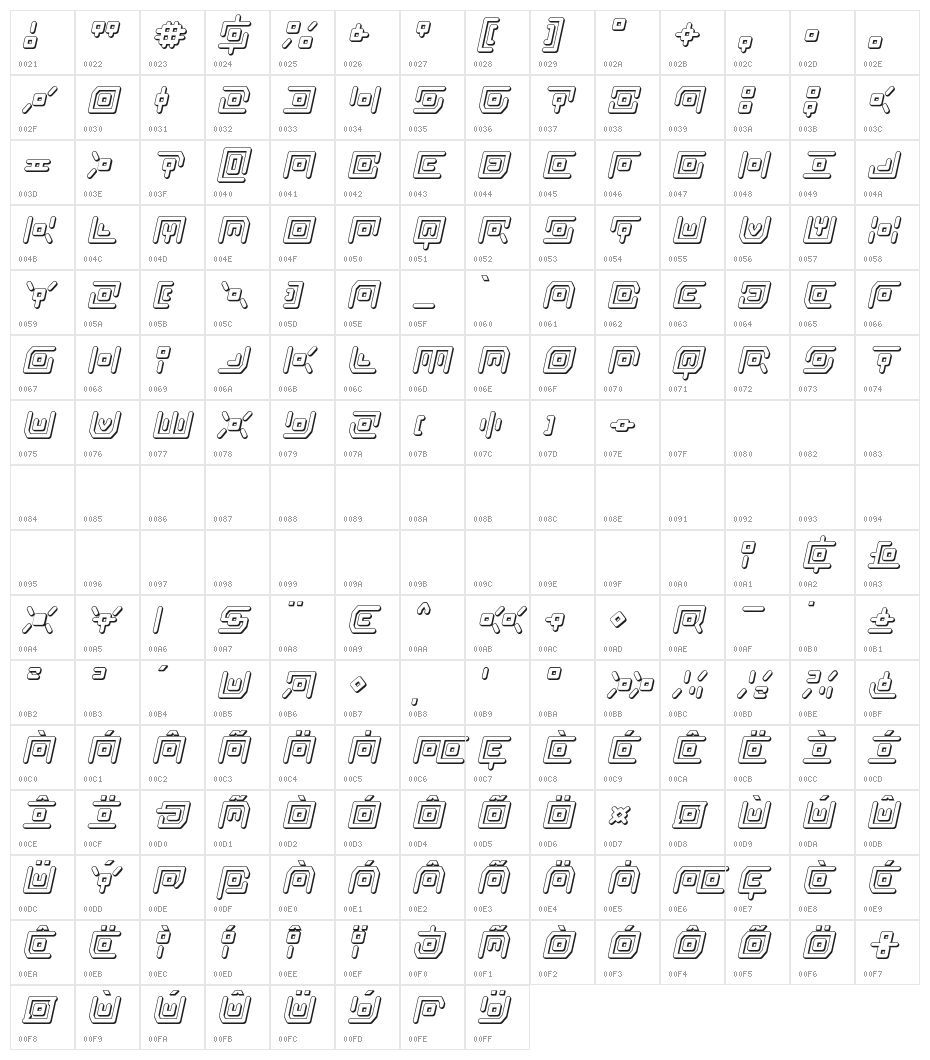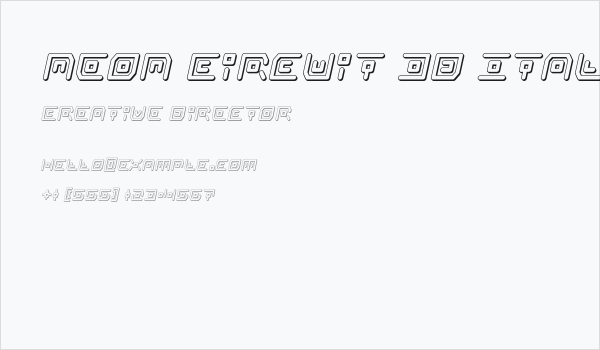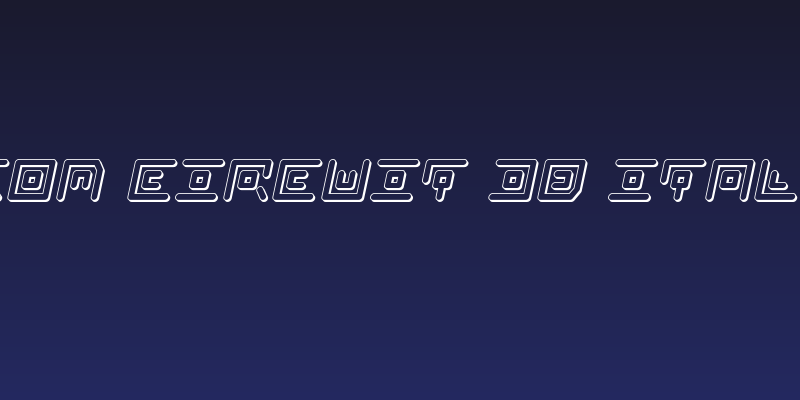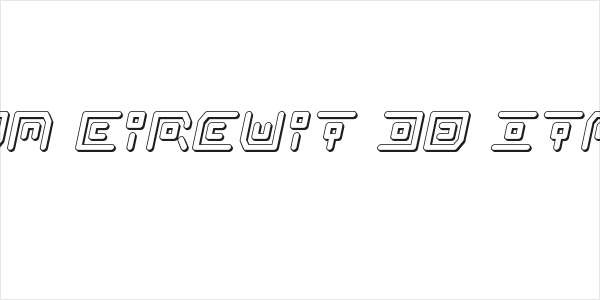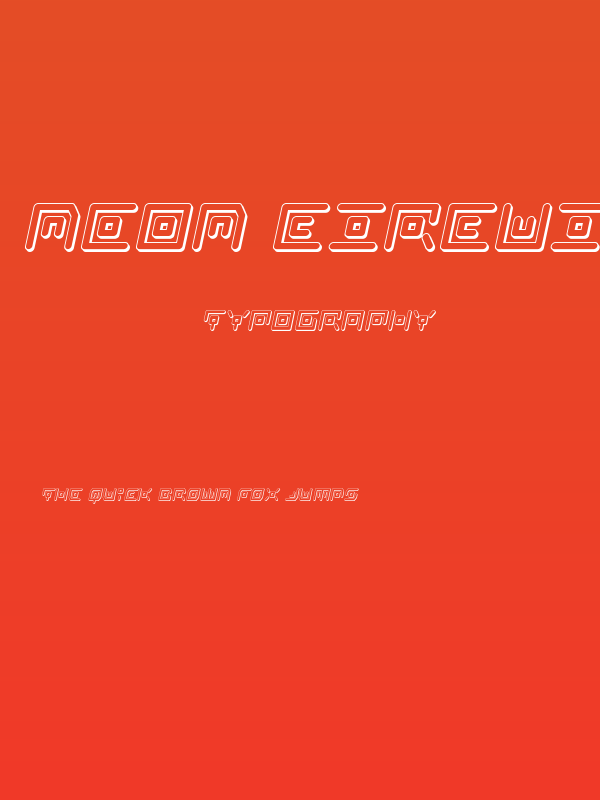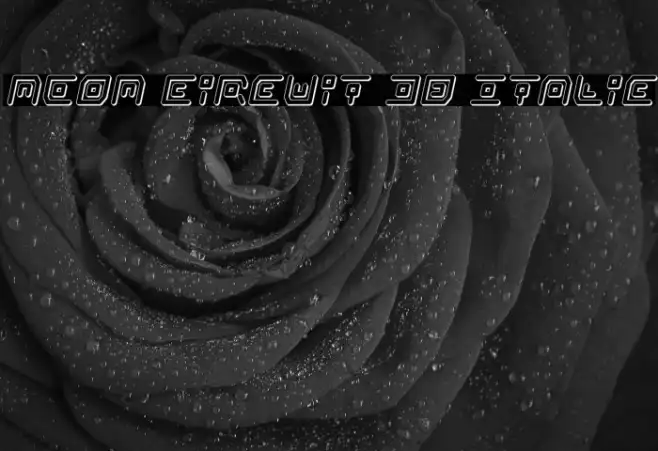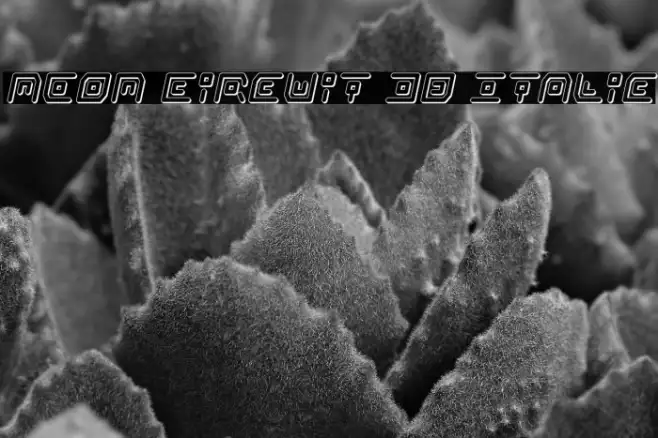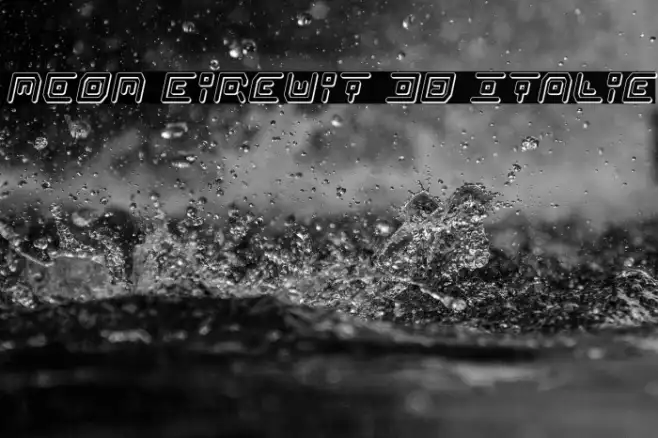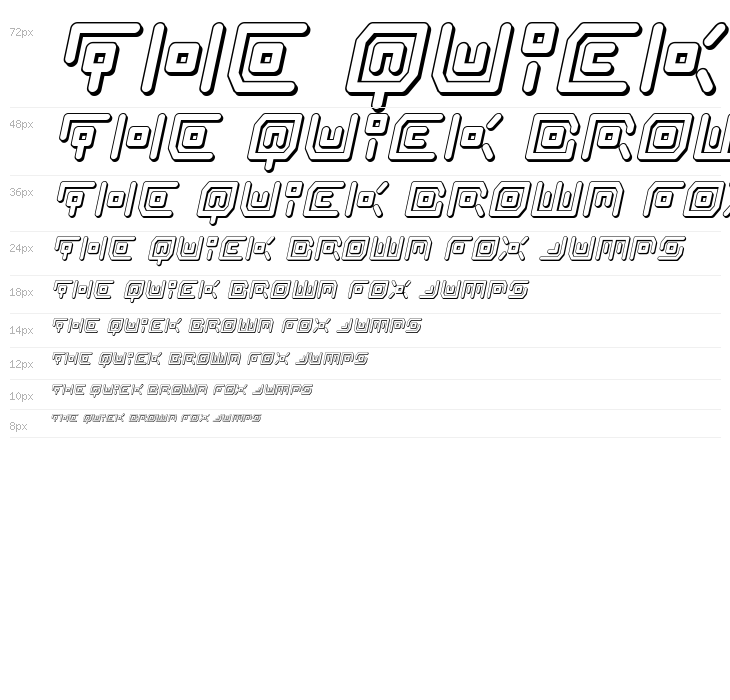
Neon Circuit 3D Italic Font
Neon Circuit 3D Italic Description
This font features a futuristic and digital aesthetic, reminiscent of neon lights and circuit patterns. The characters are outlined with a 3D effect, giving them a layered and dimensional appearance. The design incorporates angular and geometric shapes, with each letterform appearing as if it is part of an electronic circuit. The italic style adds a dynamic and forward-leaning aspect, enhancing the sense of movement and modernity. The font's unique structure is both decorative and functional, making it suitable for projects that require a tech-savvy and innovative look.